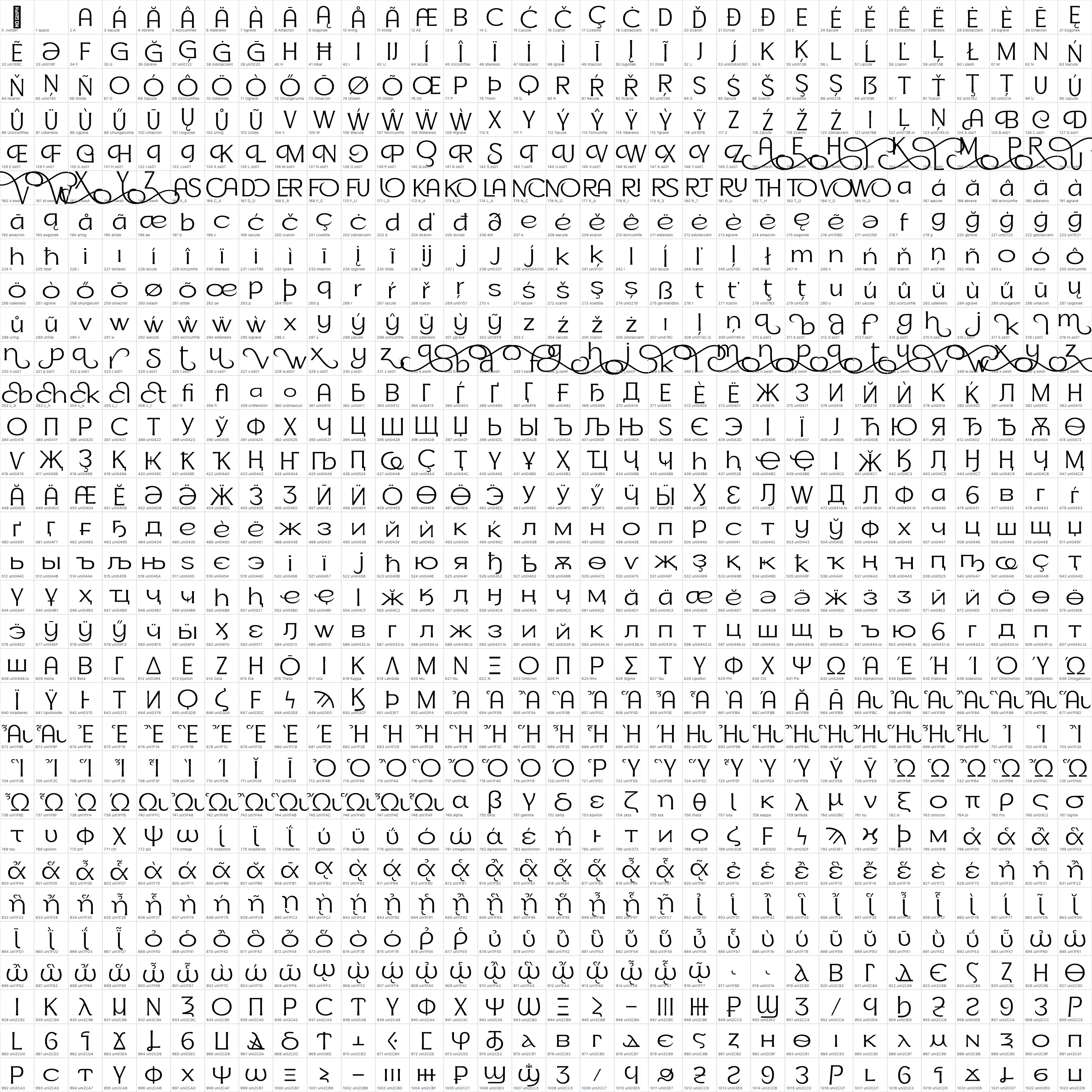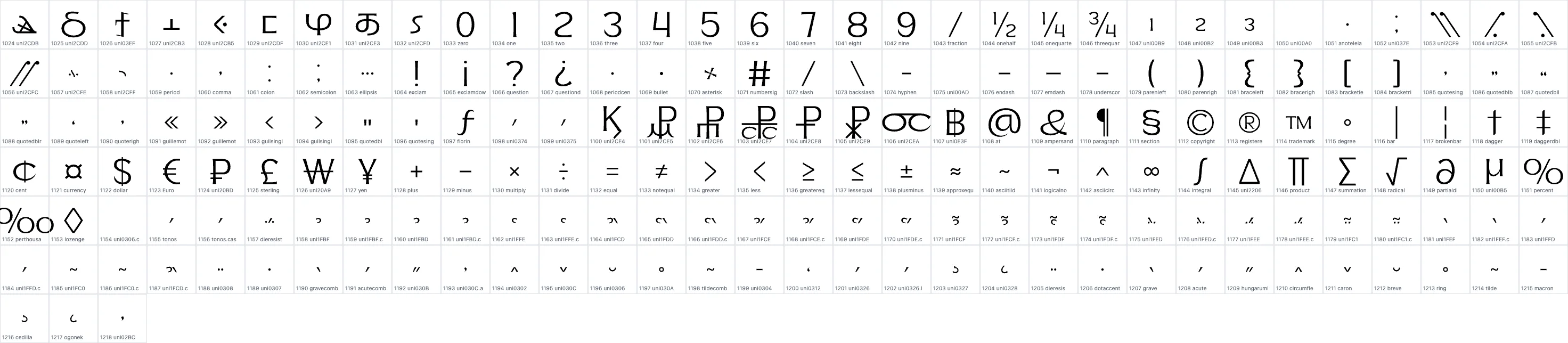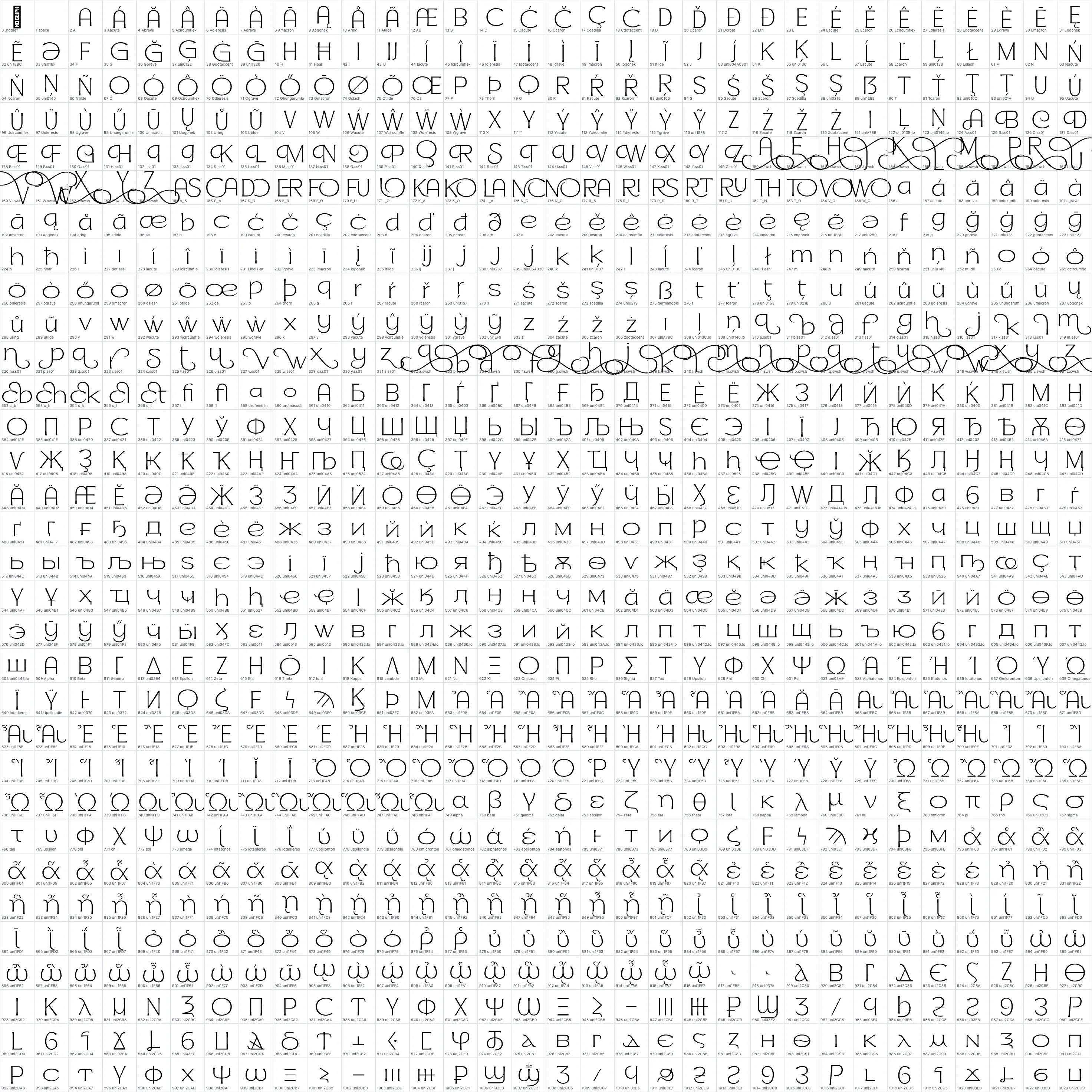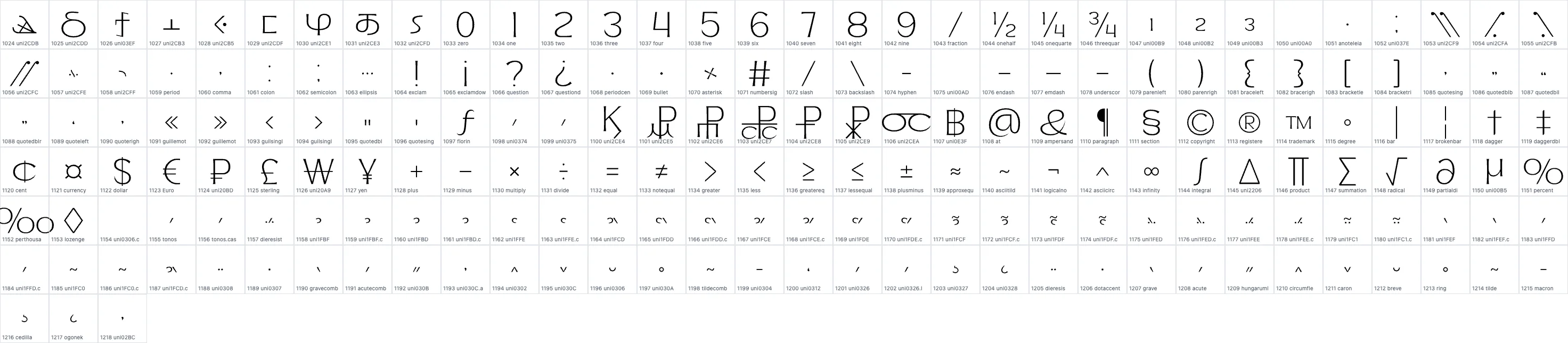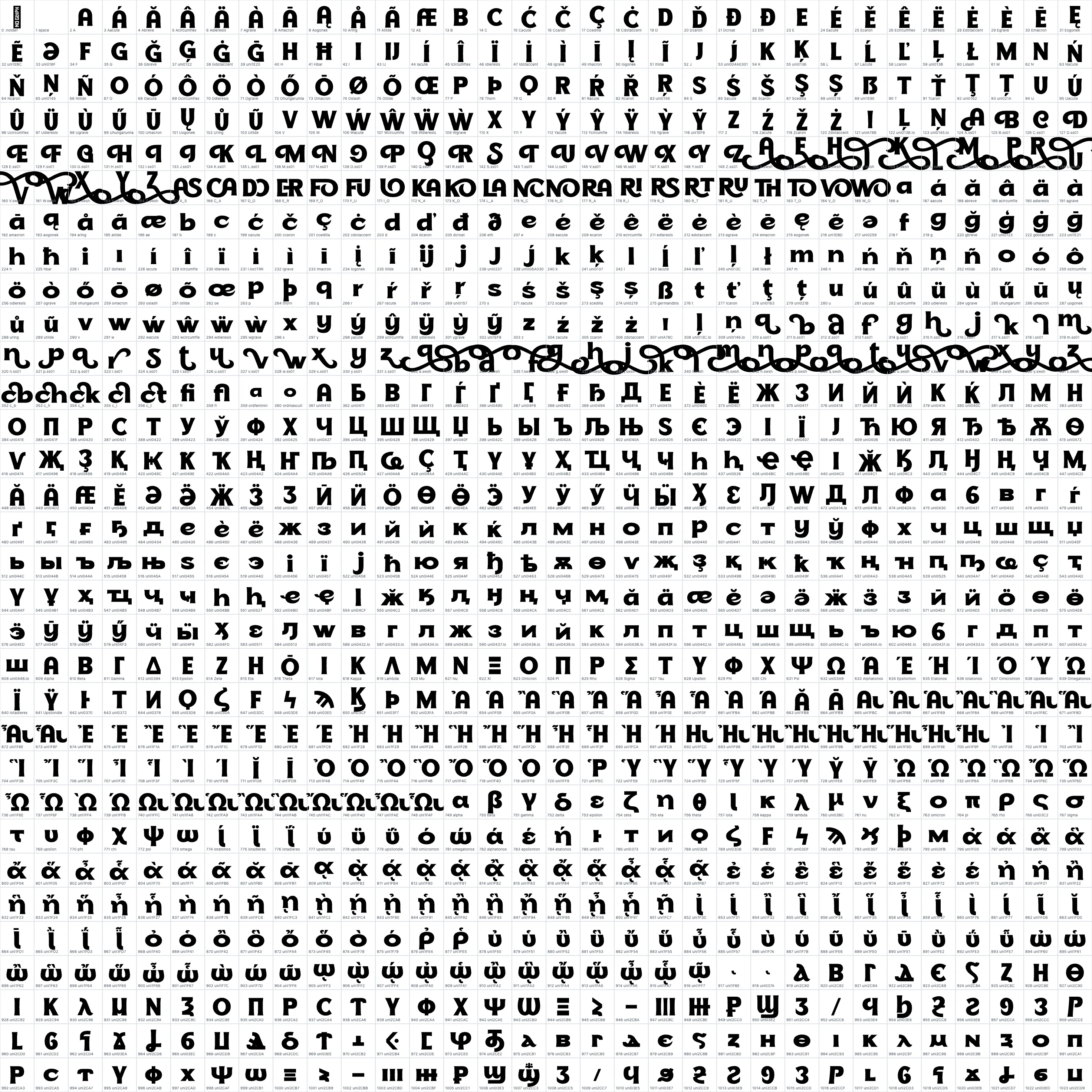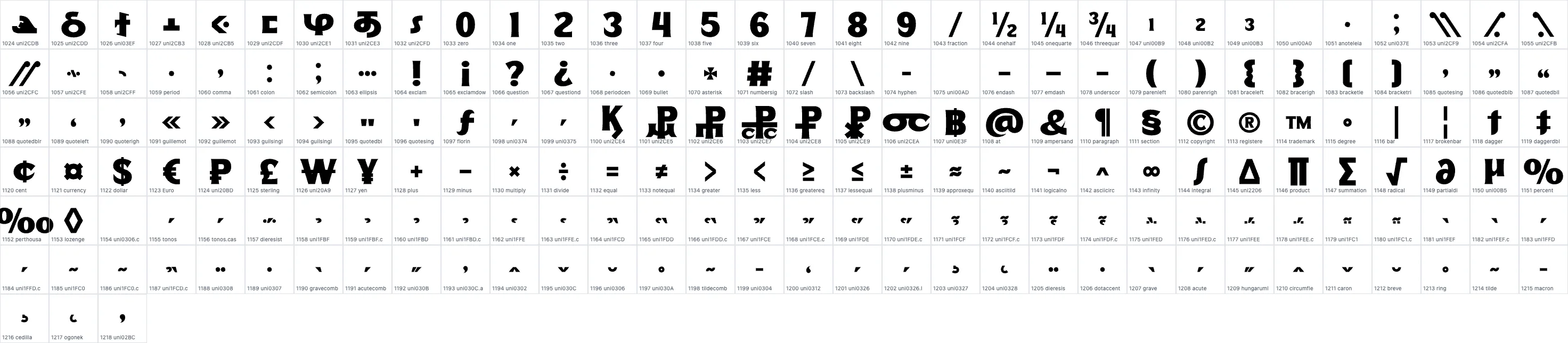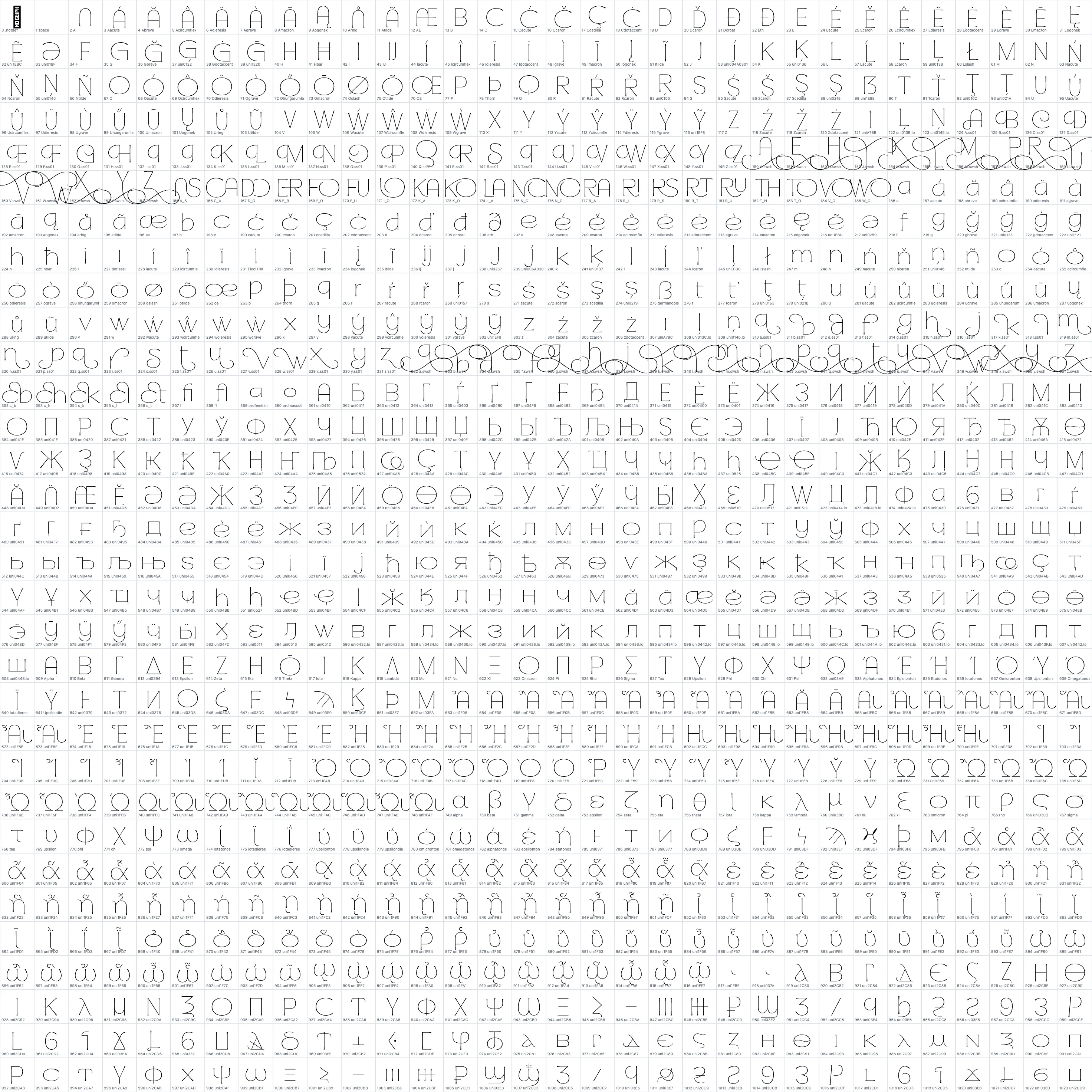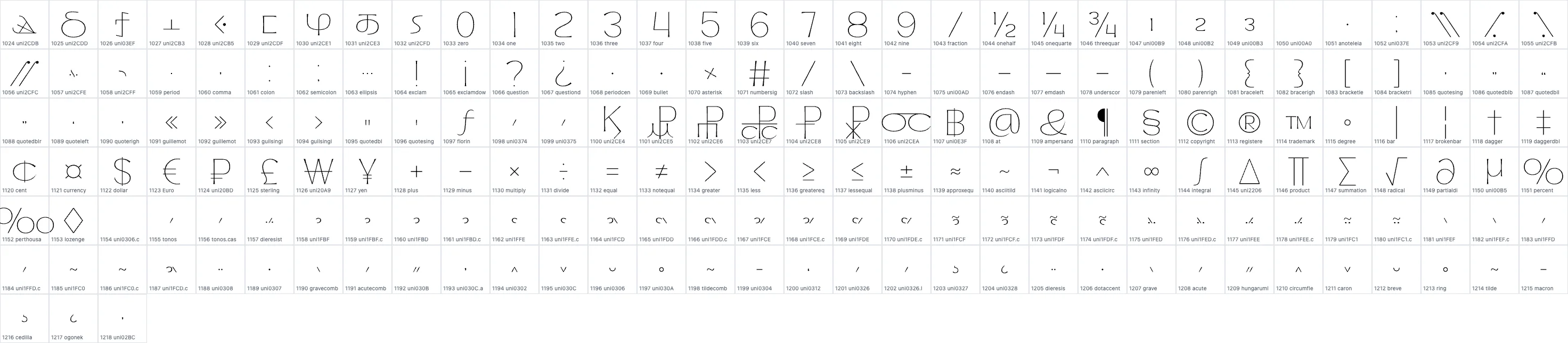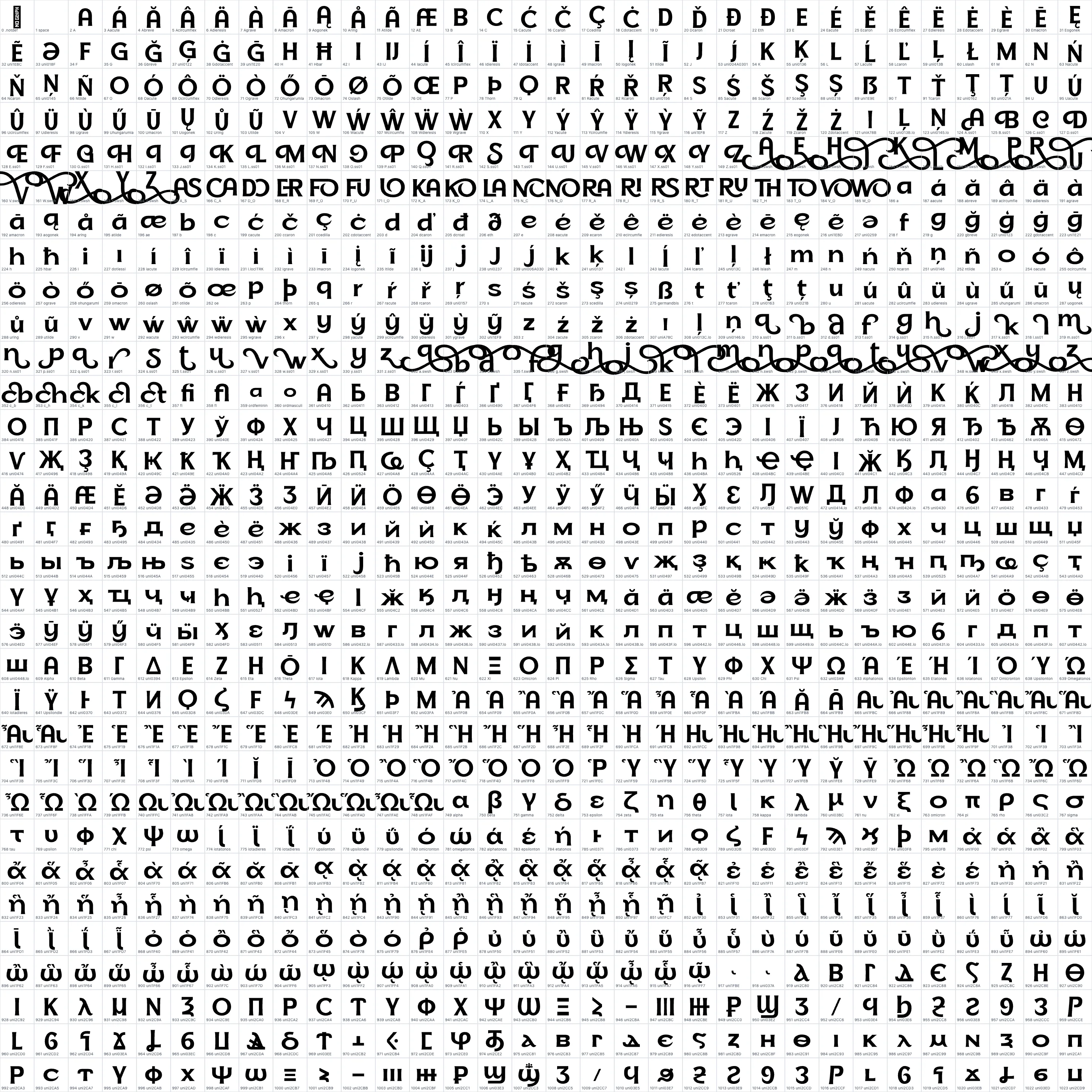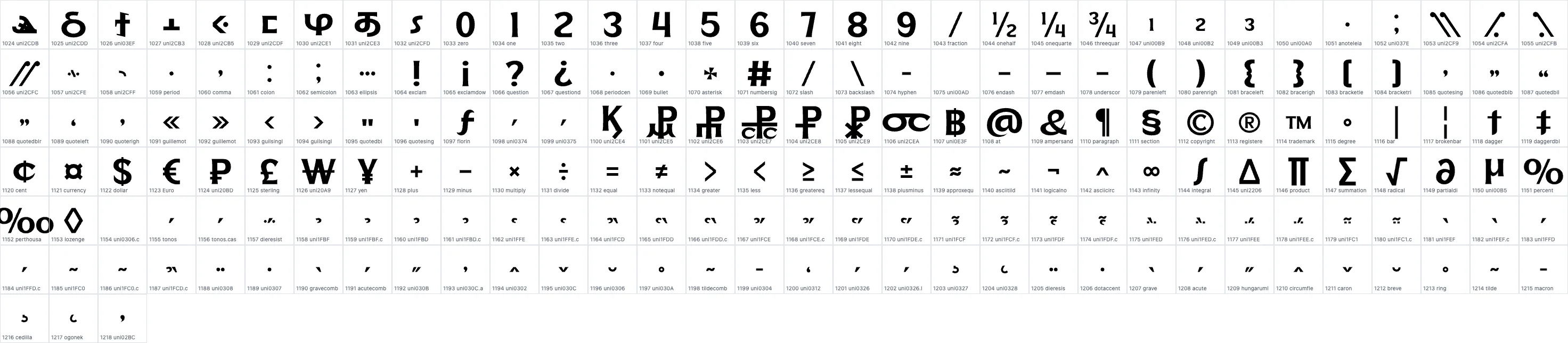
Soncara – Futuristic Soft Serif Font
With multilingual support covering Latin, Greek, and Cyrillic alphabets, and versatile stylistic alternates, Soncara offers exceptional flexibility for global creative projects.
- Soncara Futuristic Soft Serif Font
- Supports Latin, Greek, and Cyrillic alphabets
- Multilingual support
- Stylistic alternates & ligatures